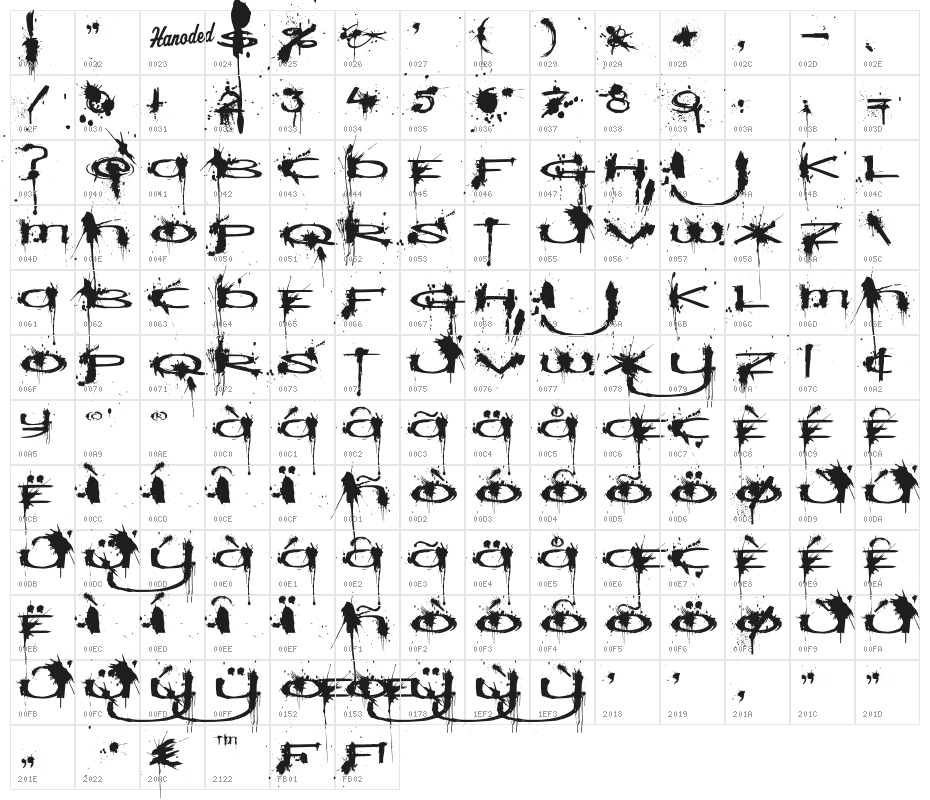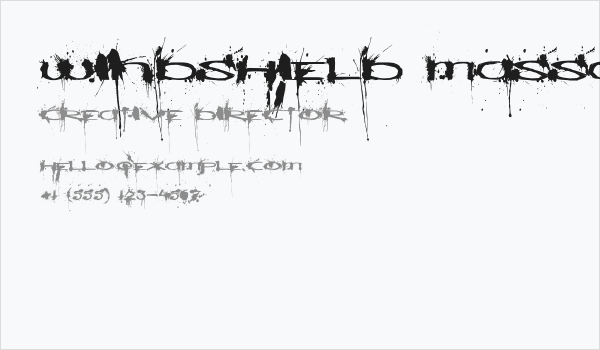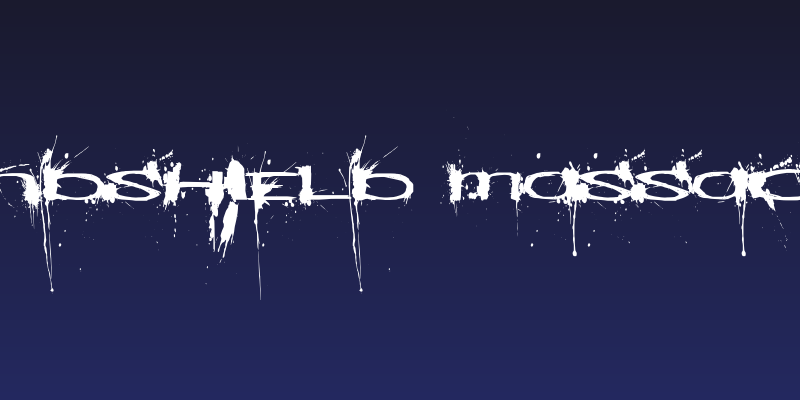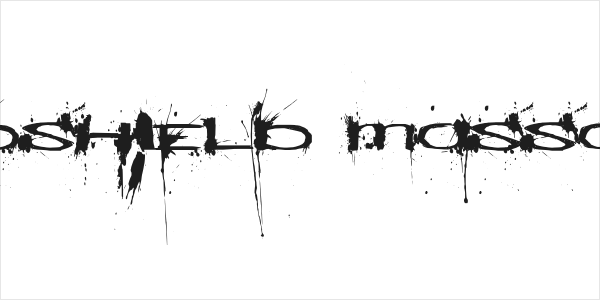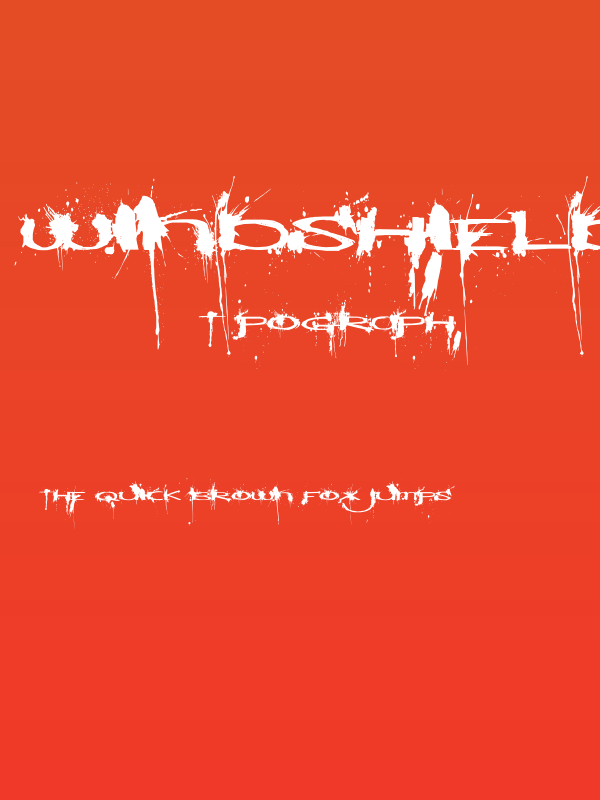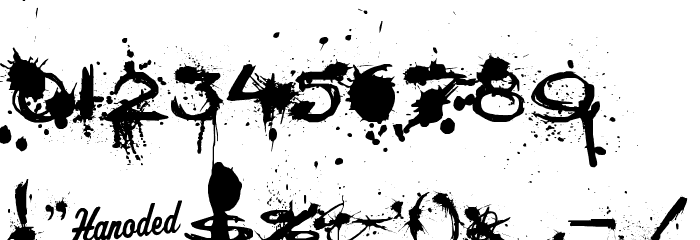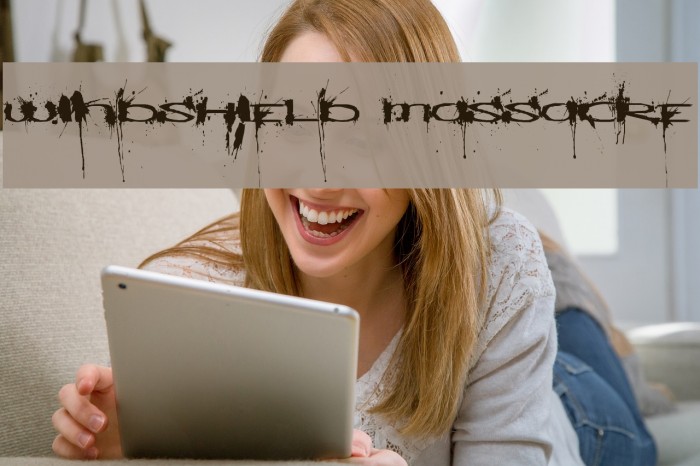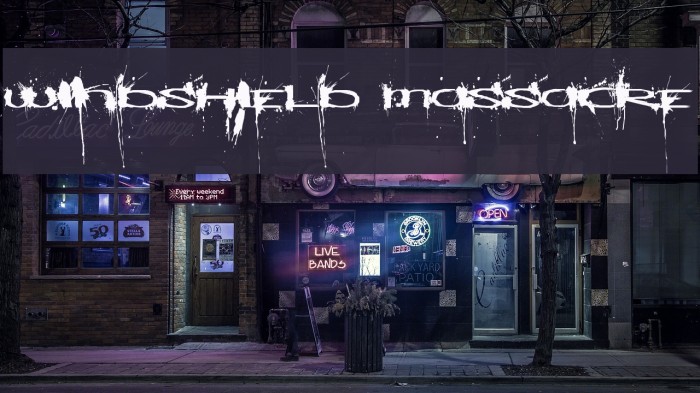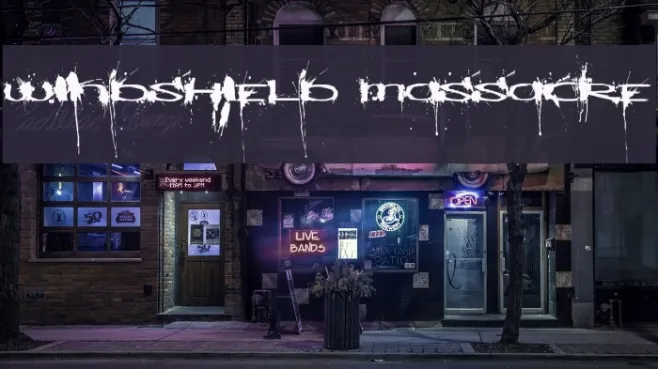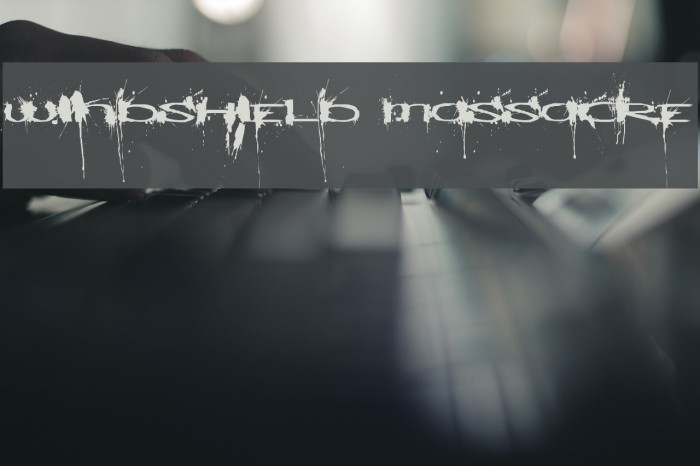
Windshield Massacre Font
Windshield Massacre Description
This font features a highly distressed and grungy aesthetic, characterized by splatters and irregular edges that give it a chaotic and edgy appearance. The letters are bold and dramatic, with a sense of movement and energy that suggests a rebellious or alternative style. The uppercase and lowercase letters maintain a consistent design, while numbers and special characters are equally dynamic, adding to the overall impact. This font is ideal for projects that require a strong visual statement and a sense of raw, unrefined creativity.
| Overall Style | Grunge, Edgy, Chaotic |
| Proposed Projects | Album covers, horror movie posters, streetwear branding, graffiti art, and event flyers. |